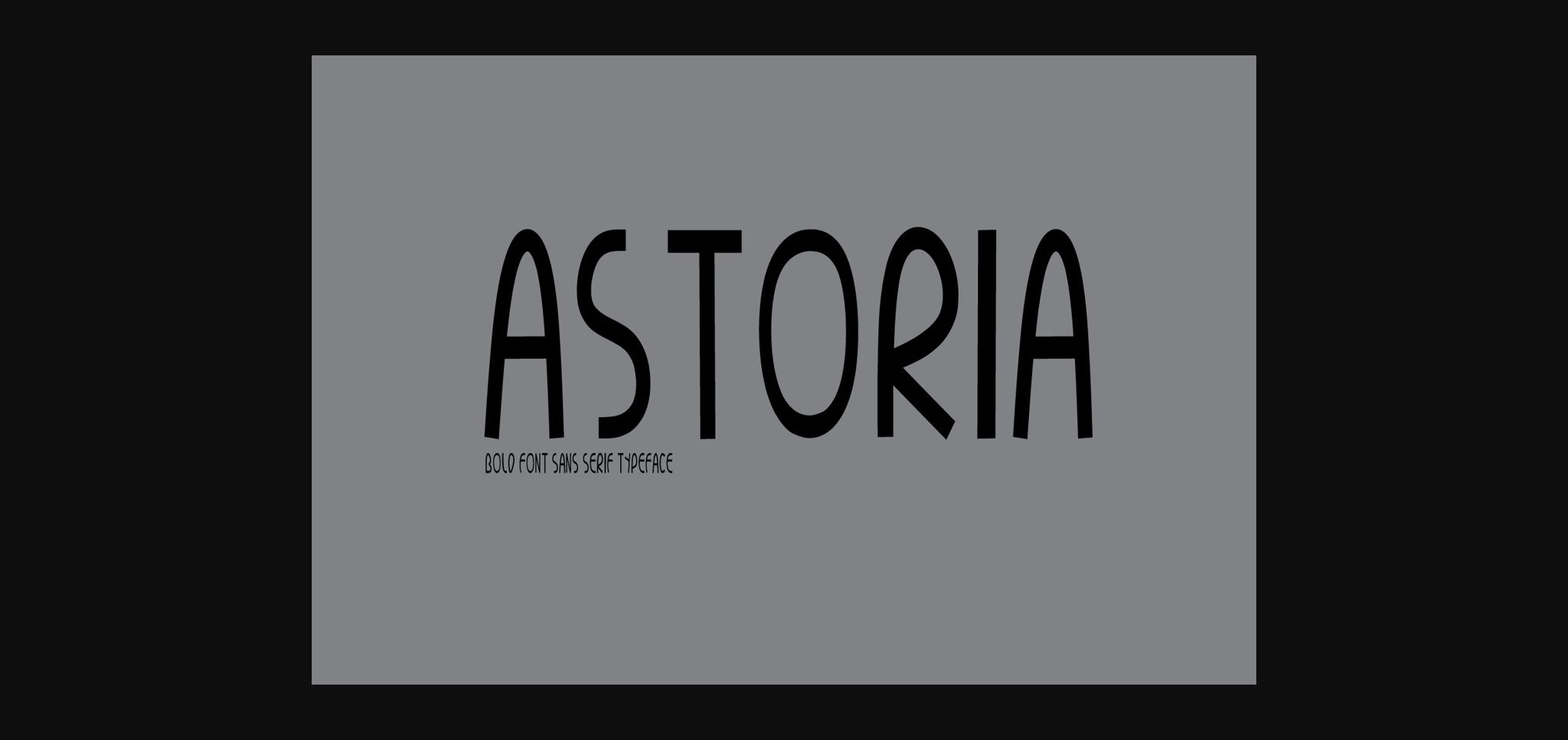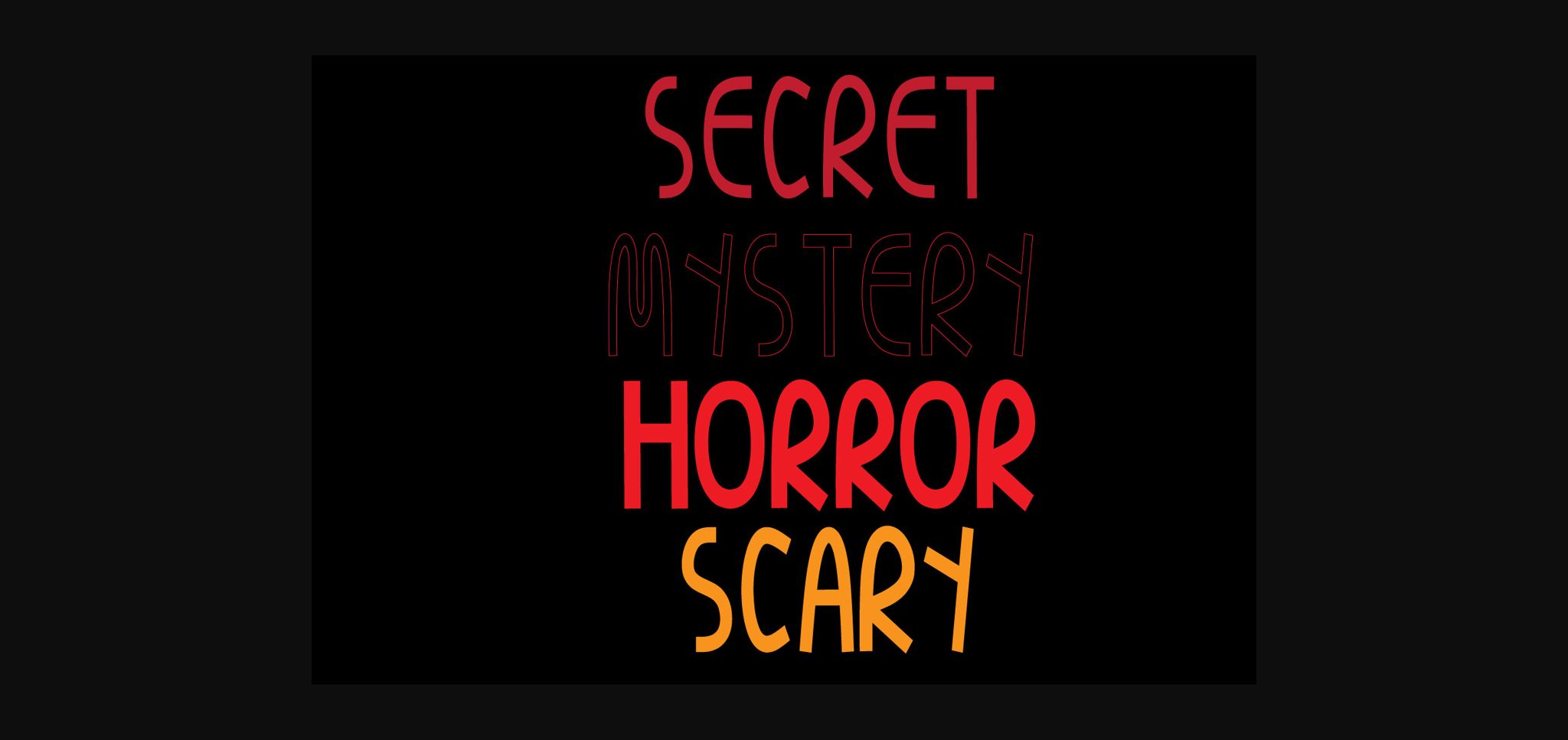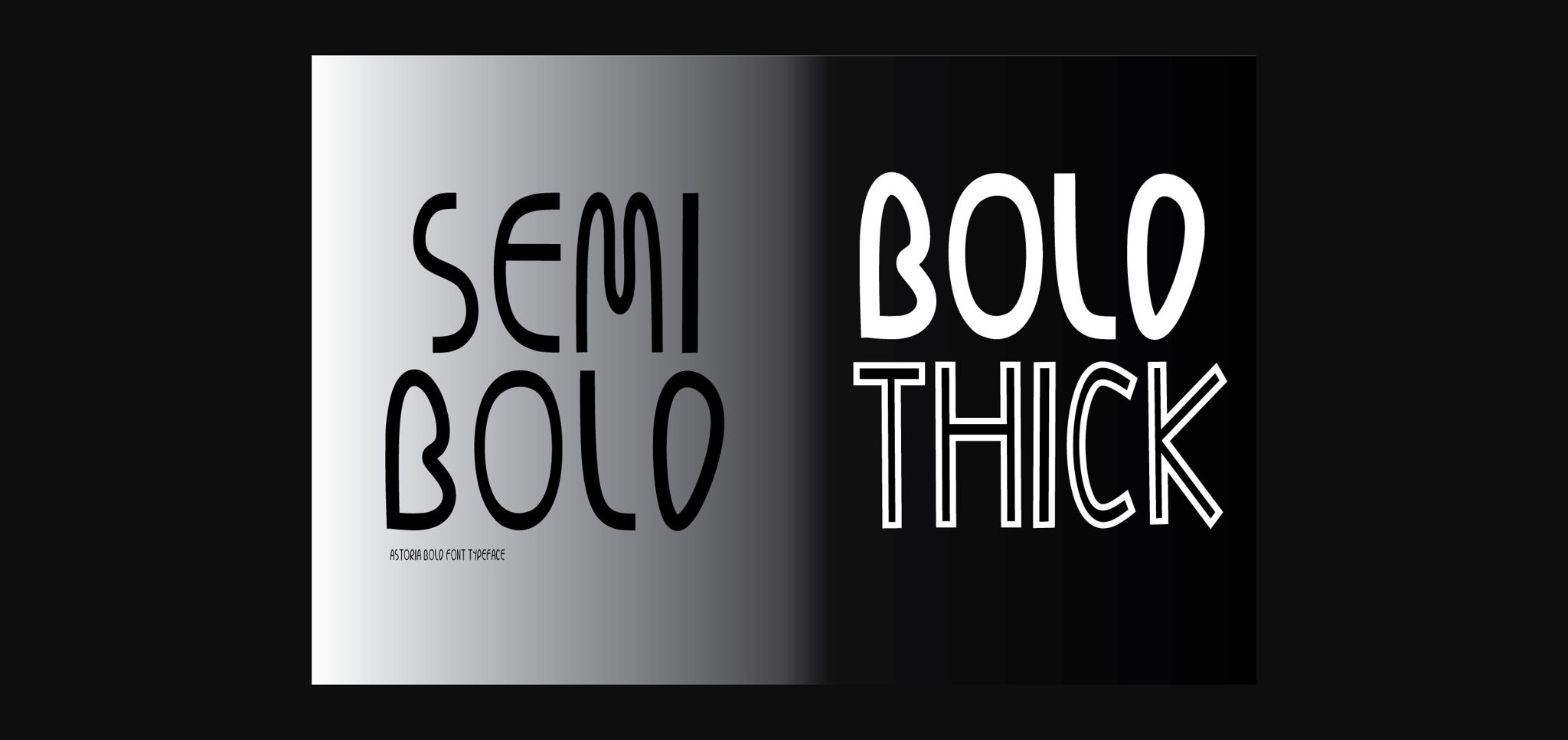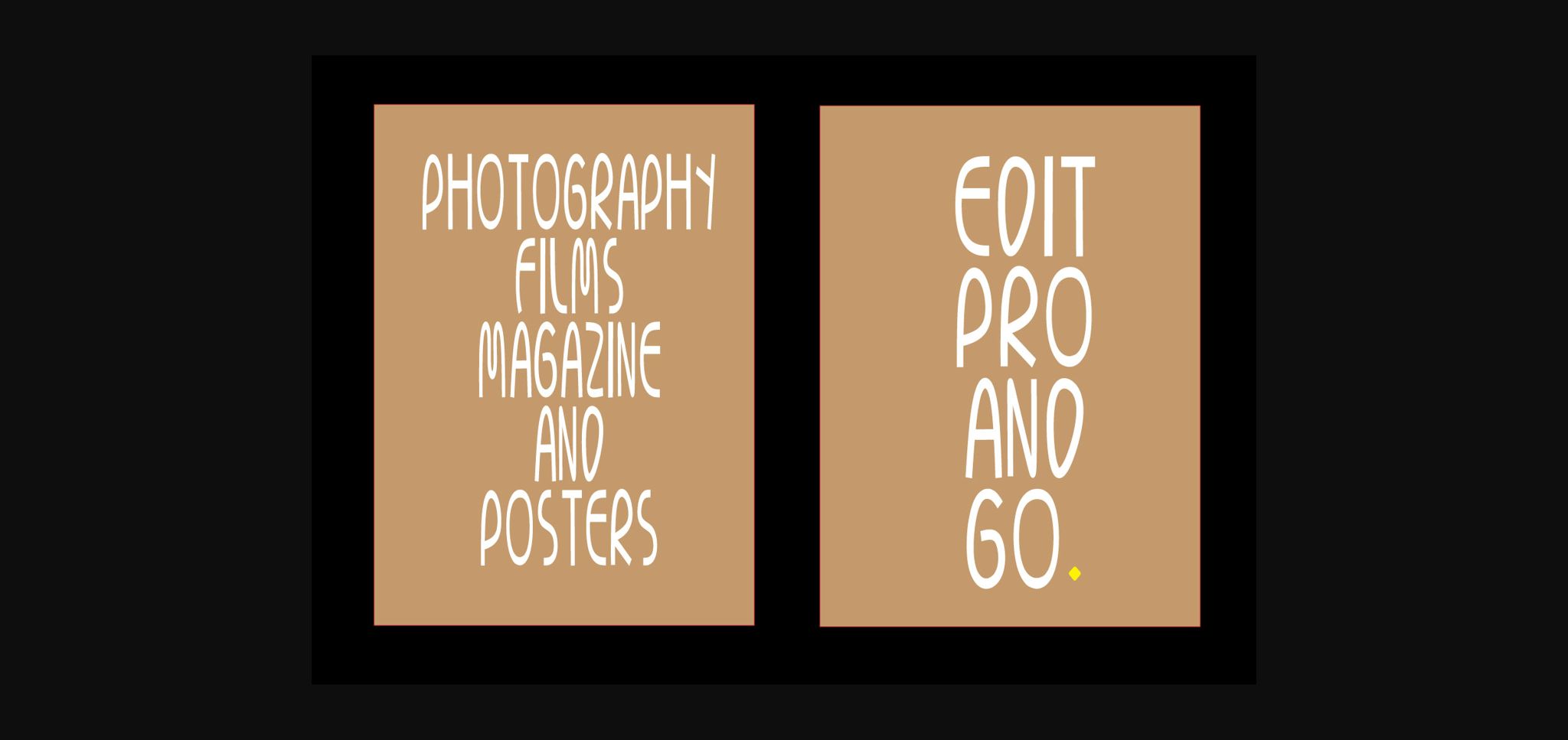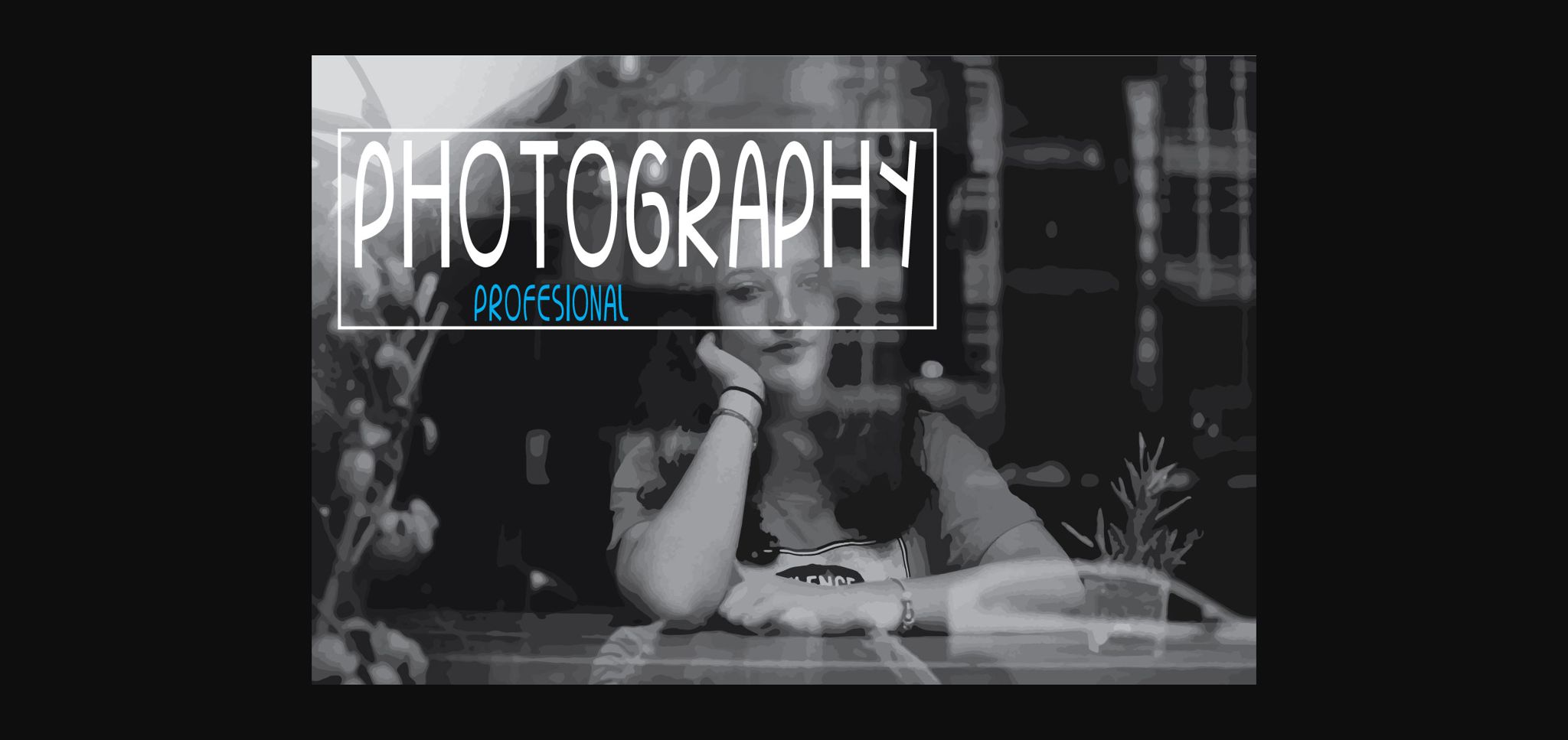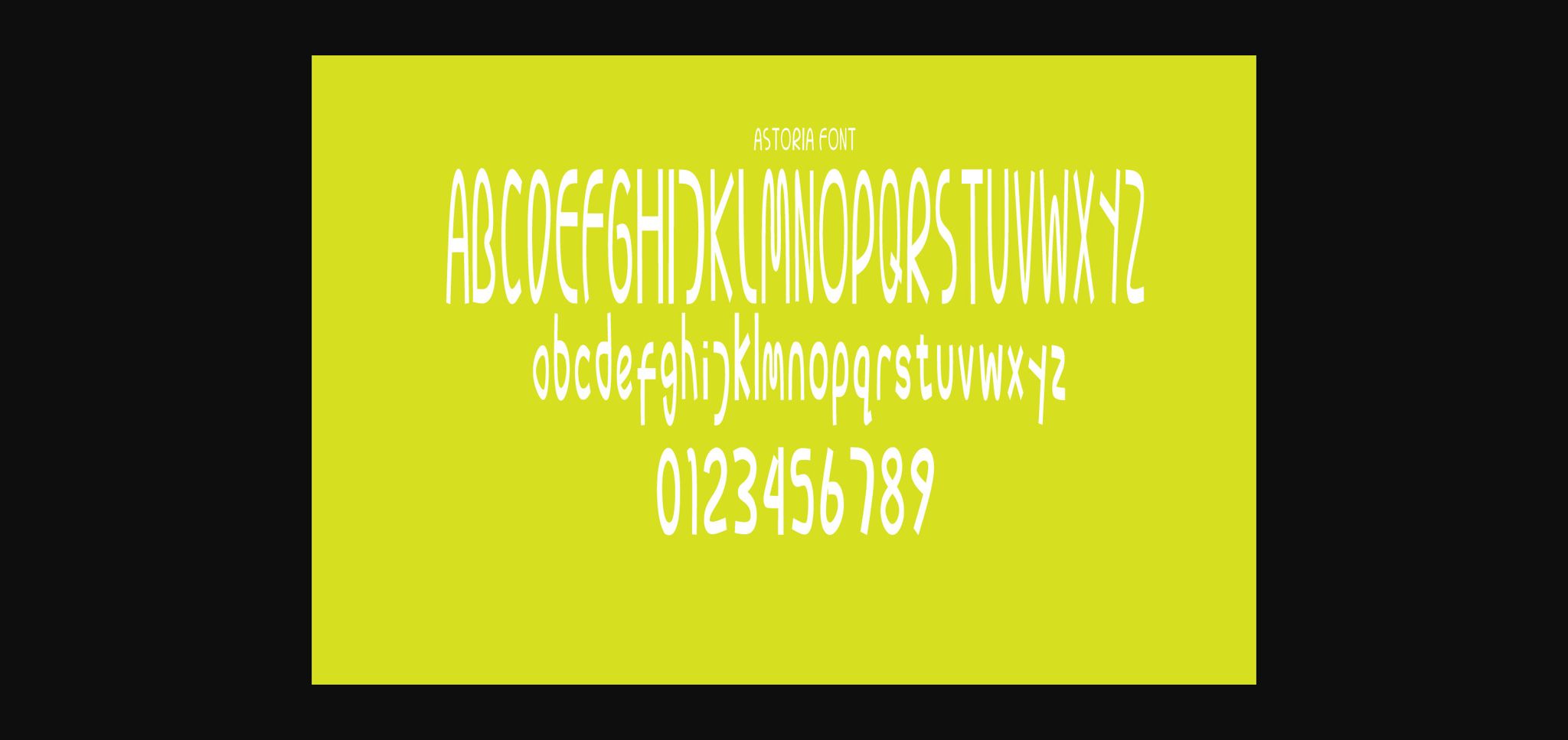
Astoria is a simple and casual sans serif font. Modern and natural, this font will fit a variety of designs, both formal and informal. The only limit is your imagination!